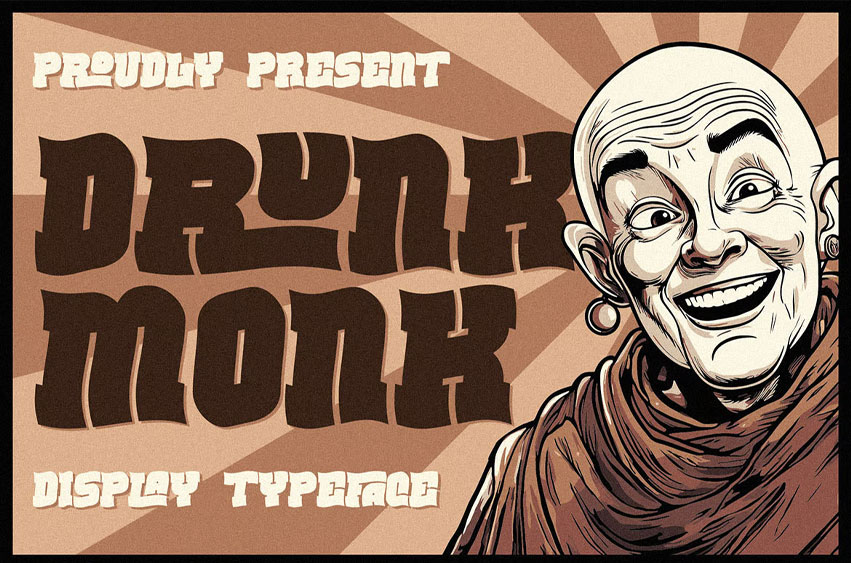
Drunk Monk Font
Drunk Monk Font Unique, creative, funny, bold, playful & dancing label serif font. Comes with multilingual support & ligatures + 2 font versions – great for your new logo, monogram, or branding project.
• 2 font versions – regular & aged
• Multilingual support & ligatures
• Great for retro or vintage-style branding projects